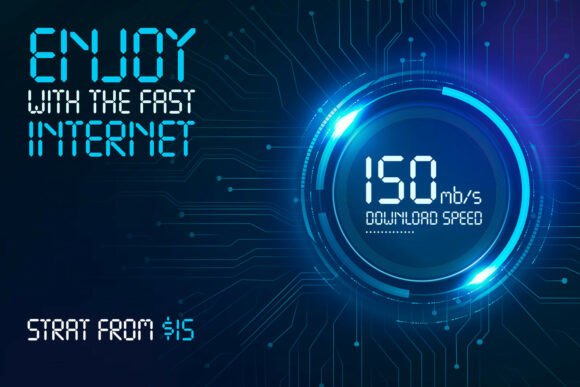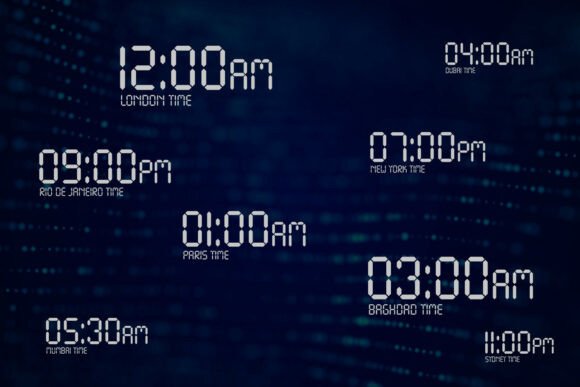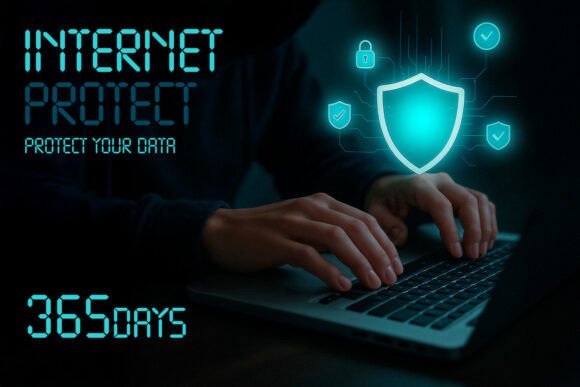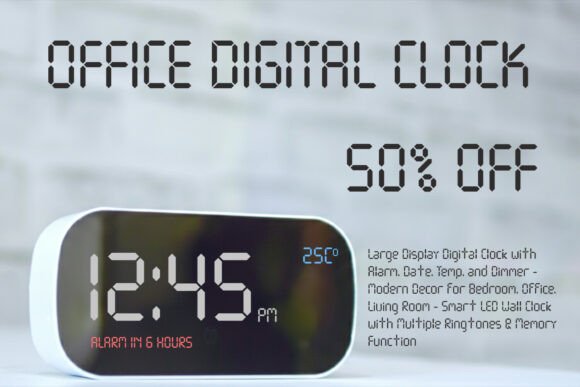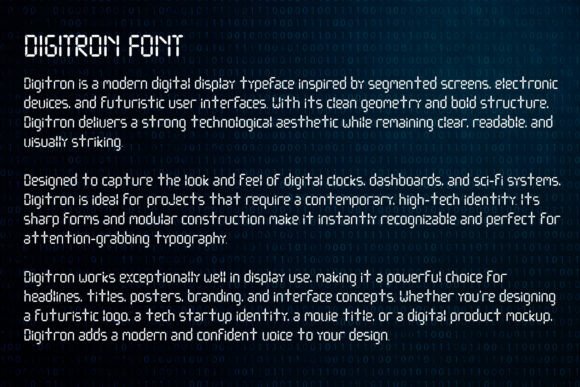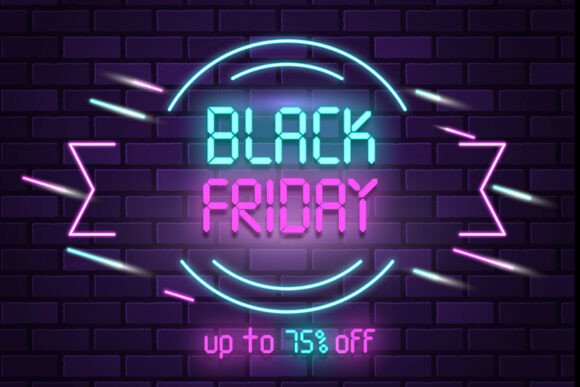
Introducing Digitron Font: The Ultimate Digital Display Typeface for Futuristic Designs
In the realm of digital design, typography plays a crucial role in conveying the desired aesthetic and tone of a project. For those seeking a font that embodies the futuristic essence of segmented screens, electronic dashboards, and high-tech user interfaces, look no further than Digitron Font. This modern digital display typeface is meticulously crafted to capture the precision and sleekness of digital clocks and sci-fi systems, making it an ideal choice for a wide range of applications.
Design Characteristics of Digitron Font
Digitron Font boasts a clean geometric structure and a bold modular design, which lends itself perfectly to creating a contemporary, technological identity. The sharp angles and modular construction of this typeface make it a powerful choice for HUD (Heads-Up Display) designs, movie titles, and tech-driven logos. The font’s design pays homage to the nostalgia of the 80s “cyber” era while remaining perfectly relevant for today’s AI and coding-themed aesthetics.
- Clean Geometric Structure: The font’s geometric design ensures clarity and readability, even at small sizes, making it suitable for a variety of applications, from digital interfaces to print materials.
- Bold Modular Design: The modular construction of Digitron Font gives it a unique, futuristic look that is reminiscent of digital displays and electronic dashboards.
- Versatility: This typeface is incredibly versatile and can be used for a wide range of projects, including cyberpunk logos, tech startup brands, gaming interfaces, movie titles, and more.
- Nostalgic yet Modern: Digitron Font successfully blends nostalgia for the 80s “cyber” era with a modern aesthetic that is perfectly suited to today’s tech-driven world.
Creative Applications of Digitron Font
The potential applications for Digitron Font are vast and varied. Here are a few ideas to get you started:
- Cyberpunk Logos: Create a logo that embodies the futuristic, high-tech essence of the cyberpunk genre.
- Tech Startup Brands: Establish a strong, technological identity for your tech startup with a bold and modern typeface.
- Gaming Interfaces: Enhance the user experience of your game with a font that screams futuristic technology.
- Movie Titles: Add a touch of sci-fi flair to your movie titles with a font that evokes the nostalgia of classic sci-fi films.
Design Tips for Maximizing Impact
To truly maximize the impact of Digitron Font, consider pairing it with glowing neon effects and dark backgrounds to fully lean into its sci-fi potential. This combination will create a visually stunning effect that is sure to capture the attention of your audience.
- Glowing Neon Effects: Add a touch of neon glow to your text to create a futuristic, high-tech look.
- Dark Backgrounds: Use dark backgrounds to create contrast and make your text stand out.
Digitron Font is a powerful, modern digital display typeface that is perfectly suited to a wide range of applications. Its clean geometric structure, bold modular design, and nostalgic yet modern aesthetic make it an ideal choice for designers and crafters seeking to create a futuristic, technological identity. Whether you’re working on a cyberpunk logo, a tech startup brand, a gaming interface, or a movie title, Digitron Font is sure to deliver a visually stunning result.